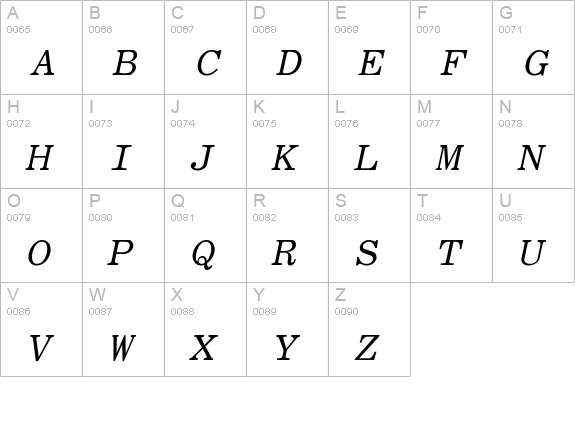
RomanFixedWidth Italic is a distinctive, italic variant in the RomanFixedWidth typeface family \xE2\x80\x94 well suited to design and typography projects.
Introducing RomanFixedWidth Italic font, a sleek and stylish typeface designed to bring a touch of elegance to your projects. This font features a classic Roman-inspired design with a modern twist, making it perfect for adding a sophisticated touch to your designs. The italic style adds a sense of movement and flair, making your text stand out in a unique way. What sets RomanFixedWidth Italic font apart is not only its timeless design but also the fact that it is available for free download at FontsMarket.com. This means you can easily access this versatile font for all your creative needs without any cost. Whether you're working on branding, print design, or digital projects, RomanFixedWidth Italic font is sure to enhance the visual impact of your work. Embrace the beauty and versatility of RomanFixedWidth Italic font, and elevate your designs with this stunning typeface that combines tradition with a contemporary edge. Download it for free today and add a touch of sophistication to your projects.